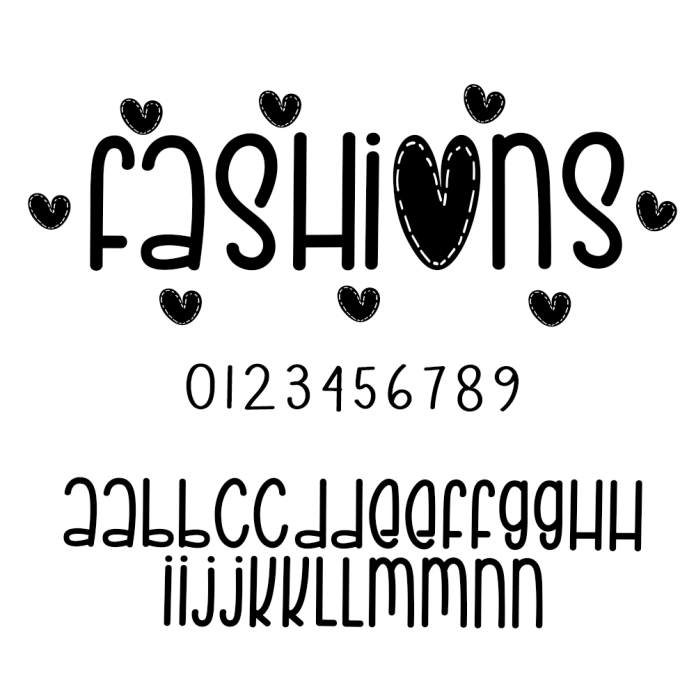
Fashions Font is a sweet and friendly handwritten font. Cute and fun, this font is ideal for writing wedding invitations, cards, or any other design that might need a fun touch!